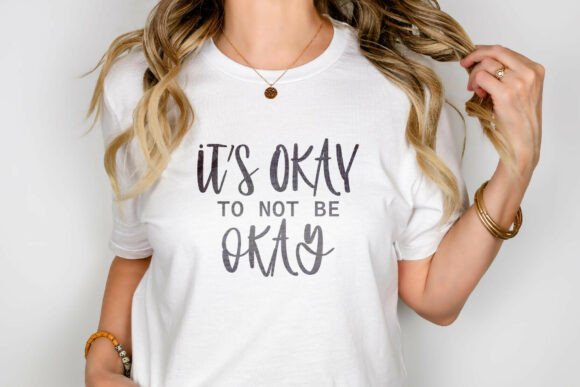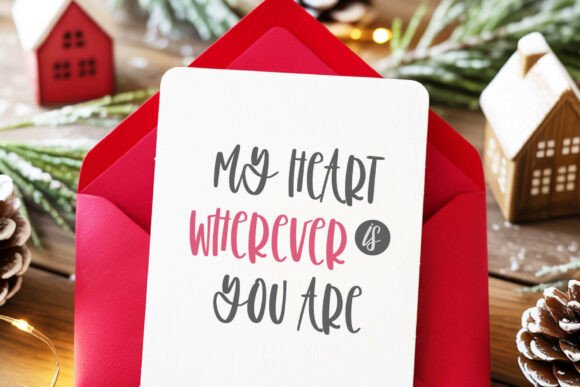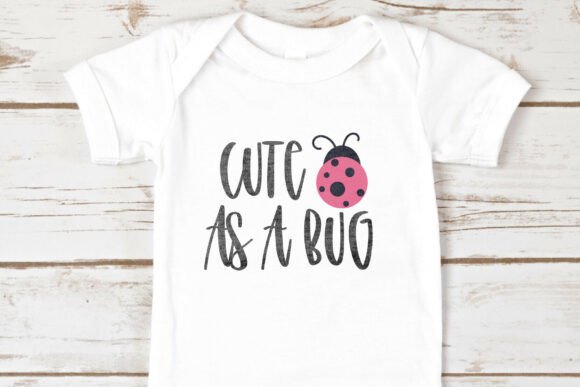
The Perfect Font for a Playful Touch
Have you ever stared at a blank page, feeling the urge to create something truly special, yet unsure where to start? For many of us, the spark of inspiration comes from a single element – a font that speaks to our personality and style. That’s where the Inkystem Font comes in, a tall and bouncy handwritten font that radiates playful energy and quirky charm.
Designed to add a fun-loving touch to any project, the Inkystem Font is perfect for branding, social media graphics, greeting cards, posters, or DIY projects. Its unique blend of smooth curves and expressive angles makes it versatile for both uppercase and lowercase, offering endless possibilities for creative combinations.
For designers, the Inkystem Font is a valuable asset, providing a clear and readable yet stylish solution for projects that demand a fresh and modern edge. With its lively rhythm and natural bounce, this font is sure to capture attention and leave a lasting impression.
Inkystem Font Key Features
- Font Size and Weight: Inkystem Font comes in 8 different font weights, ranging from Thin (100) to Extra Bold (800), providing users with a versatile range of options for various design needs.
- Resolution and Scalability: Inkystem Font is designed to be scalable and resolution-independent, ensuring it looks crisp and clear at various screen resolutions and print sizes.
- Unique Characteristics: Inkystem Font features a distinctive, hand-drawn aesthetic with subtle texture and imperfections, giving it a unique and organic feel that sets it apart from other fonts.
- Language Support: Inkystem Font supports a wide range of languages, including Latin, Cyrillic, and Greek scripts, making it suitable for international and multilingual designs.
- Optical Size: Inkystem Font is optimized for use at various optical sizes, from small text to large headings, ensuring it remains legible and visually appealing across different contexts.
Inkystem Font Review
Overall, I think the Inkystem Font is a solid addition to any designer’s toolkit. It’s got a certain charm to it that works well in the right context. ✨ The rounded edges and subtle flair on the letters make it feel friendly and approachable, perfect for body text or display headings.
One of the things I appreciate about Inkystem is its flexibility. It’s a versatile font that can work in a range of settings, from modern and sleek to vintage and distressed. ✨ The font also includes a range of weights and styles, making it easy to customize to suit your design needs.
- ⚠️ The font can feel a bit busy in certain situations, particularly when used for large blocks of text.
- ⚠️ Some of the letters and symbols may require additional tweaking to get them to look their best, particularly in smaller sizes.
Overall, I think Inkystem Font is a great choice for designers who want a unique and eye-catching font that can add some personality to their designs. While it may not be perfect, it’s a solid addition to any designer’s toolkit and can be a great way to add some visual interest to your projects.
Inkystem Font is ideal for:
- Creative and artistic projects
Experiment with the Inkystem Font to find the perfect balance between elegance and uniqueness in your designs.